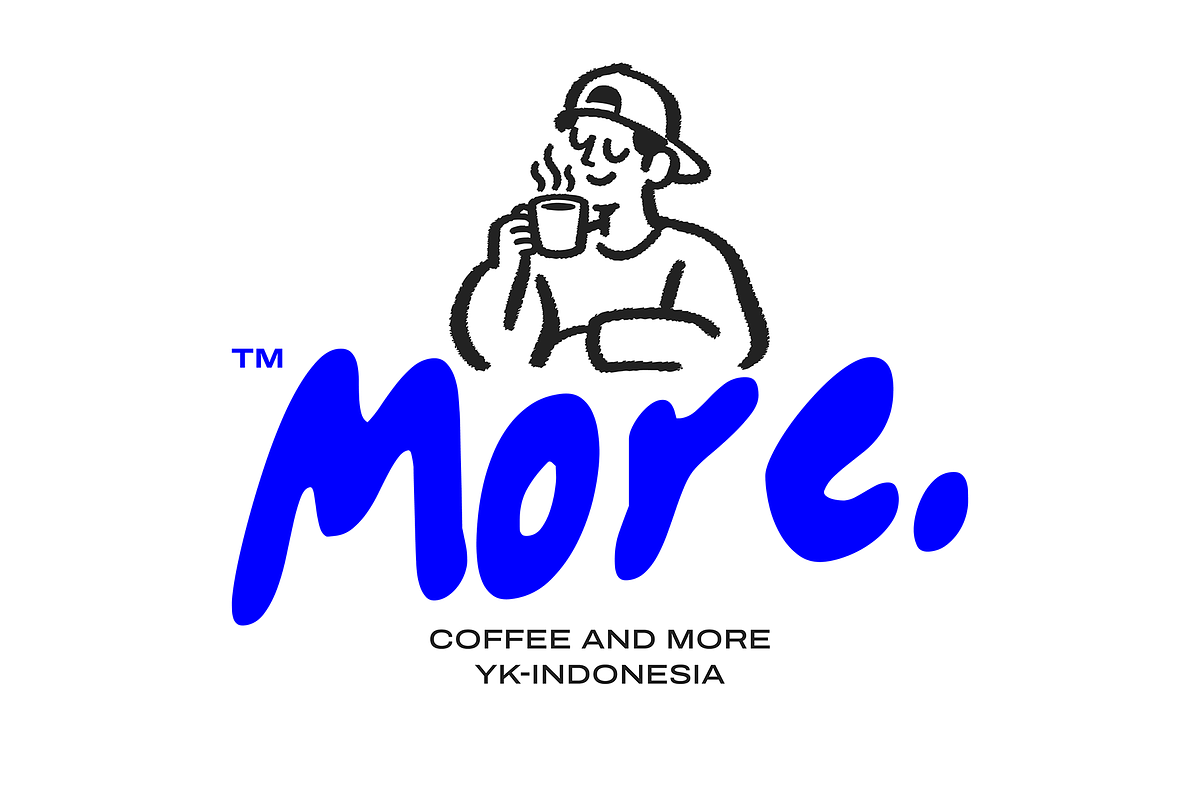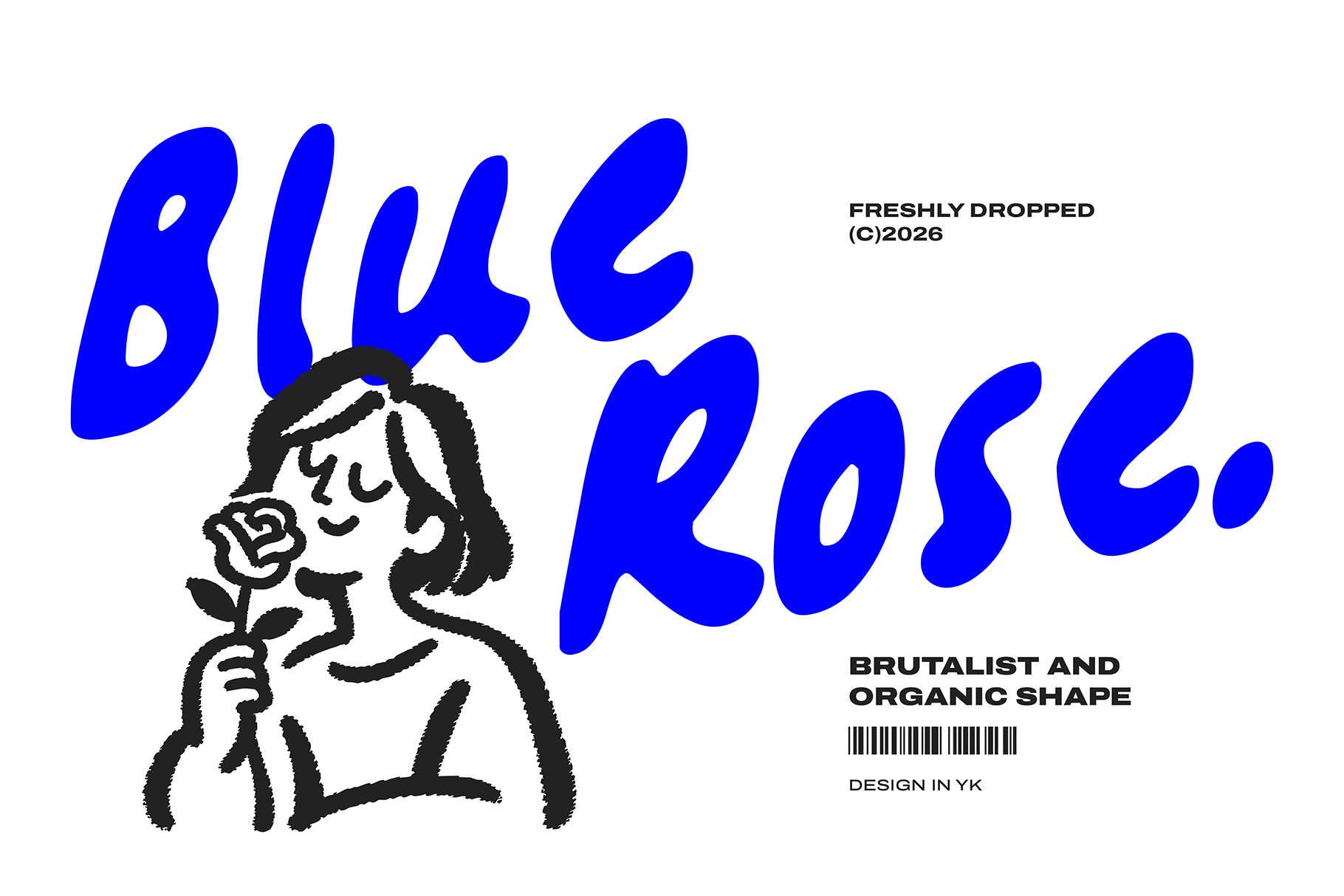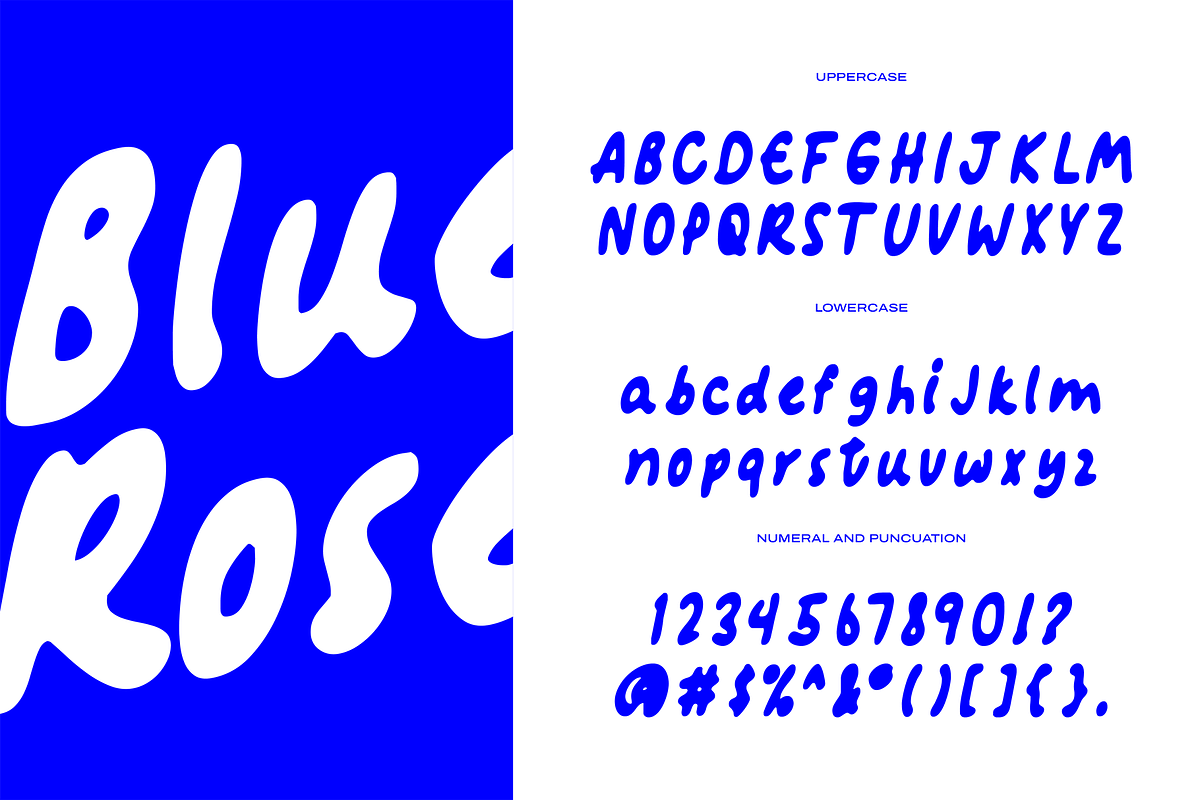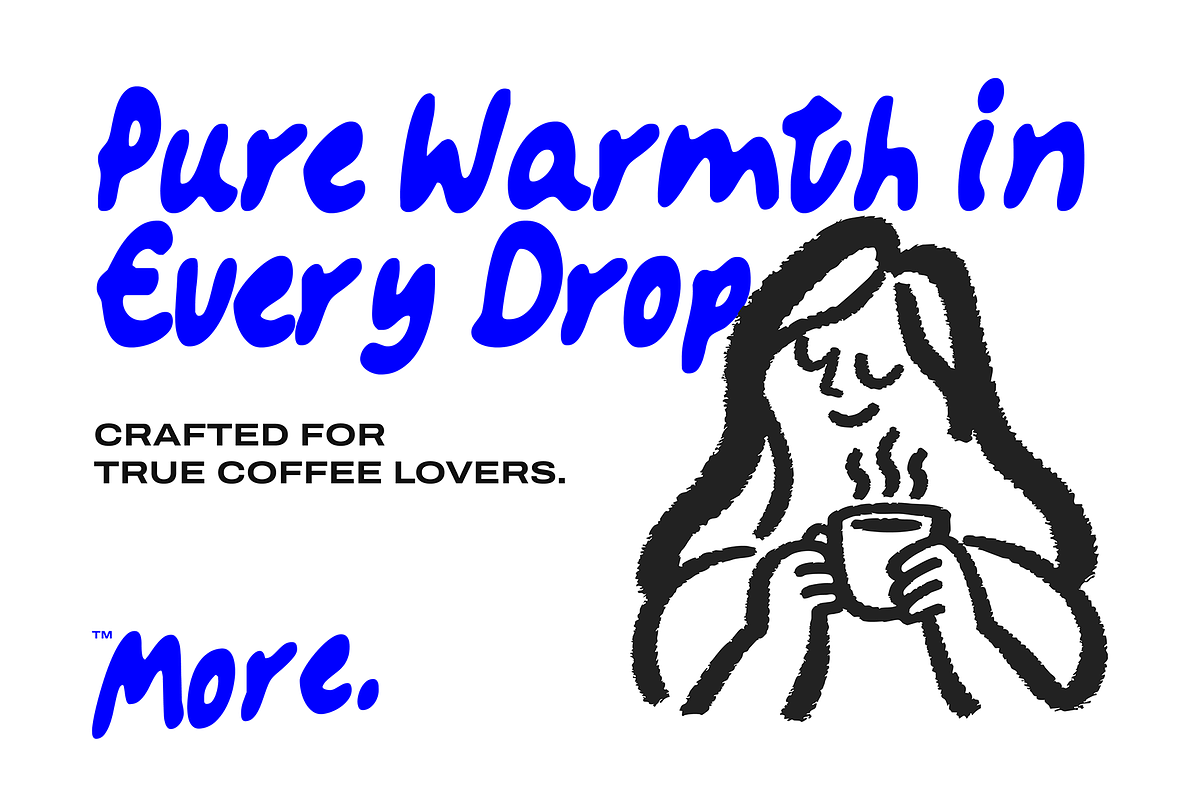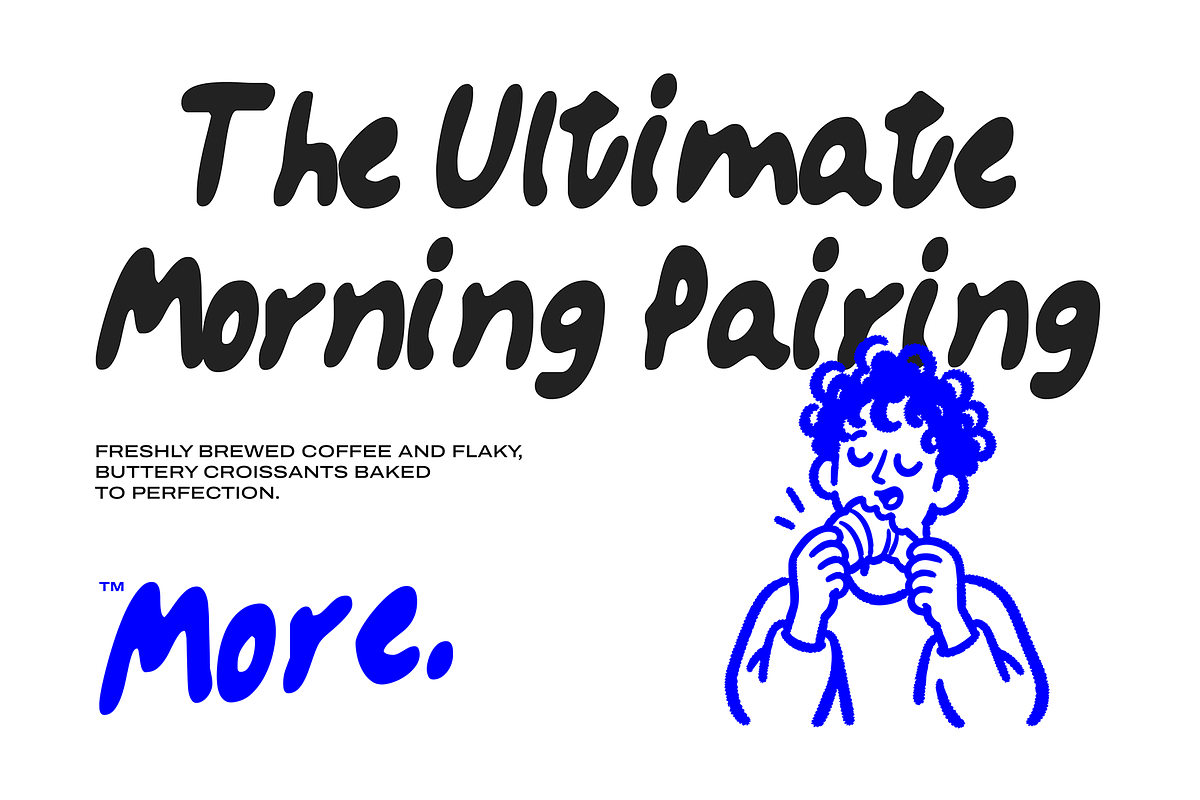
Bluerose - Imperfect Fonts
Bring a fun, youthful, and vibrant energy to your designs with Bluerose, a charming puffy bubble sans-serif font. Featuring thick, rounded letterforms paired with a bold brutalist edge and soft organic shapes, this font is meticulously crafted to give your projects an approachable, hand-drawn look.
Make your next creative project stand out with this unique, soft, and chunky display font!